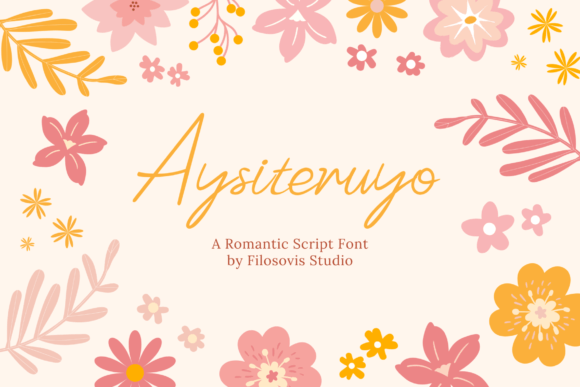
Aysiteruyo Font: The Sweet and Friendly Handwritten Font for Your Creative Projects
In the world of typography, fonts play a crucial role in conveying the tone and personality of a message. When it comes to creating designs that are playful, yet elegant, the right font can make all the difference. This is where Aysiteruyo font comes in – a sweet and friendly handwritten font that is perfect for adding a fun touch to your creative projects.
What is Aysiteruyo Font?
Aysiteruyo is a beautiful, handwritten font that is designed to bring a sense of warmth and approachability to your designs. With its flowing lines and delicate curves, this font is ideal for creating a variety of materials, from wedding invitations and greeting cards to social media graphics and blog posts.
Key Features of Aysiteruyo Font
So, what makes Aysiteruyo font so special? Here are some of its key features:
- Cute and Versatile: Aysiteruyo font is incredibly versatile, making it perfect for a wide range of design projects. Its cute and playful vibe is sure to capture the attention of your audience and leave a lasting impression.
- Sweet and Friendly: The font’s sweet and friendly tone is perfect for creating designs that are approachable and inviting. Whether you’re designing a wedding invitation or a social media graphic, Aysiteruyo font is sure to add a touch of warmth and personality to your message.
- Handwritten Style: Aysiteruyo font features a beautiful, handwritten style that is reminiscent of traditional calligraphy. Its flowing lines and delicate curves give it a unique and charming feel that is sure to stand out.
Use Cases for Aysiteruyo Font
So, what can you use Aysiteruyo font for? The possibilities are endless! Here are some ideas to get you started:
- Wedding Invitations: Aysiteruyo font is perfect for creating beautiful and elegant wedding invitations. Its sweet and friendly tone is sure to set the tone for a memorable and special day.
- Greeting Cards: Whether you’re designing a birthday card, a holiday card, or a get-well card, Aysiteruyo font is sure to add a touch of warmth and personality to your message.
- Social Media Graphics: Aysiteruyo font is perfect for creating social media graphics that are playful, yet elegant. Use it to create eye-catching headlines, quotes, and other graphics that are sure to capture the attention of your audience.
- Blog Posts: Aysiteruyo font can also be used to add a touch of personality to your blog posts. Use it to create headings, subheadings, and other typography elements that are sure to make your content stand out.
Why Choose Aysiteruyo Font?
With so many fonts to choose from, why should you choose Aysiteruyo font? Here are just a few reasons:
- Unique and Charming: Aysiteruyo font has a unique and charming feel that is sure to stand out from the crowd. Its handwritten style and flowing lines give it a beautiful and elegant vibe that is hard to find in other fonts.
- Easy to Read: Despite its playful and cursive style, Aysiteruyo font is incredibly easy to read. This makes it perfect for creating designs that need to communicate a message clearly and effectively.
- Versatile: Aysiteruyo font is incredibly versatile, making it perfect for a wide range of design projects. Whether you’re designing a wedding invitation or a social media graphic, this font is sure to adapt to your needs.
Tips for Using Aysiteruyo Font
Here are a few tips for using Aysiteruyo font effectively:
- Use it Sparingly: While Aysiteruyo font is beautiful and elegant, it can be overwhelming if used too much. Use it sparingly to create headings, subheadings, and other typography elements that need a touch of personality.
- Pair it with Other Fonts: Aysiteruyo font pairs perfectly with other fonts, especially sans-serif fonts. Experiment with different font combinations to create a unique and visually appealing design.
- Experiment with Colors: Aysiteruyo font looks beautiful in a variety of colors. Experiment with different colors to find the one that best suits your design and message.
Aysiteruyo font is a beautiful and elegant handwritten font that is perfect for adding a touch of personality to your designs. With its sweet and friendly tone, flowing lines, and delicate curves, this font is sure to capture the attention of your audience and leave a lasting impression. Whether you’re designing a wedding invitation, a social media graphic, or a blog post, Aysiteruyo font is sure to be a great choice.